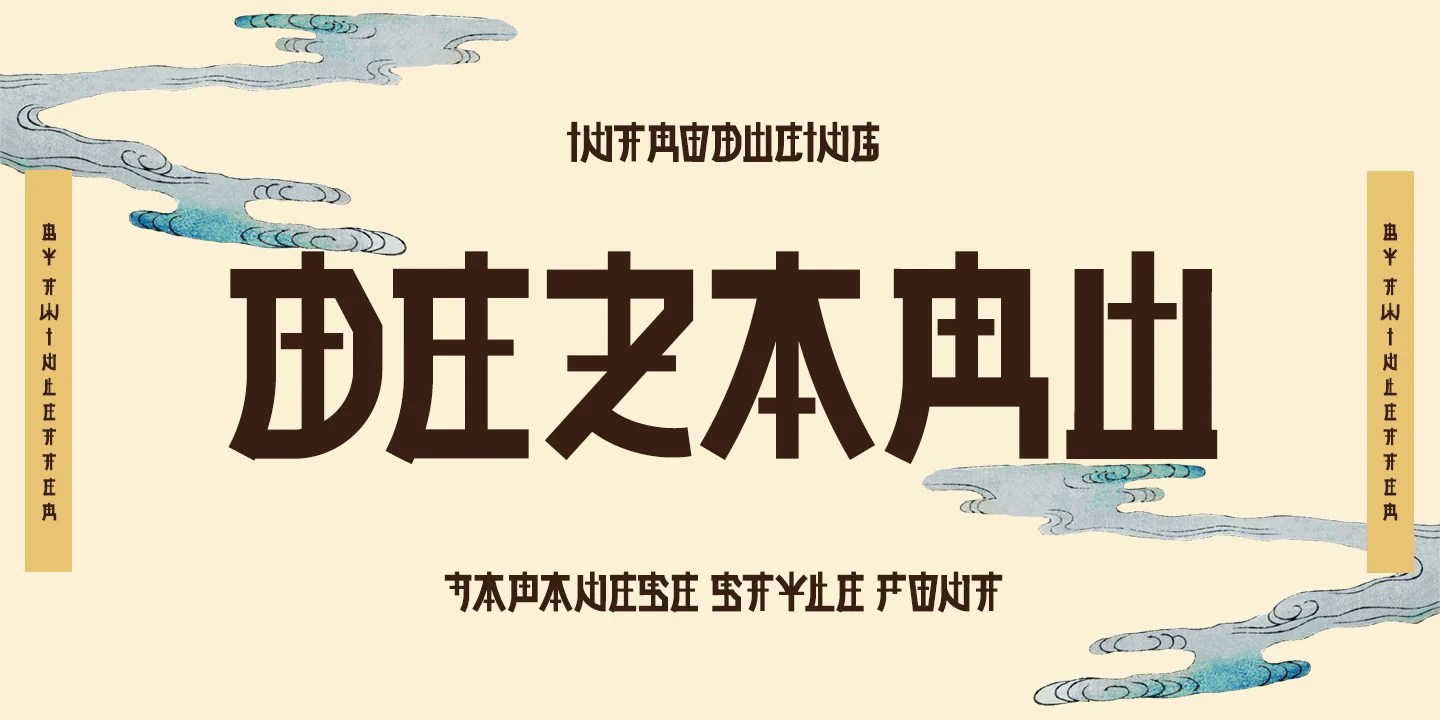
37 Stunning Japanese Style Fonts to Elevate Your Branding
Why a Japanese Style Font Works Even Without Japanese Text
Japanese visual culture — from anime and street fashion to ramen shop signage — has become one of the most recognizable aesthetics in global branding. But not every audience reads actual Japanese characters, and using authentic Japanese type can alienate readers who can’t parse it. That’s the gap a good Japanese style font fills: Latin letterforms shaped with the angular, brush-influenced character of Japanese typography, readable by anyone while still carrying that unmistakable visual flavor.
The Problem With Faking a Japanese Aesthetic
Slapping a generic bold font next to a Japanese flag emoji doesn’t create an authentic feel — it reads as a costume. A genuine Japanese style font needs the aesthetic actually built into the letterforms: the angularity, the brush-like strokes, the optical balance that Japanese typography is known for, translated into an alphabet anyone can read.
Meet the 37: A Japanese Style Font for Every Kind of Project
Twinletter has 37 Japanese style fonts, each with its own personality. Here’s the quick rundown of how each one leans:
Sujoka — distinctive and elegant, with a striking, unusual graphic display.
Kawara — bold and gorgeous, designed as an accessible alternative to authentic Japanese script.
Sukoro — abstract while staying optically balanced, so the product stands out.
Badora — built from natural handwriting, best suited to casual, fun themes.
Usagi — original handwriting shaped around a stunning, appealing Japanese feel.
Dasego — abstract letterforms with close attention to individual character and harmony.
Okasa — quirky and contemporary, for an optimal, eye-catching visual display.
Orewa — neat and elegant, easy to read and recall at a glance.
Mareka — a Japanese style font built for logotypes and branding.
Akumaru — a Japanese style font suited to food banners and posters.
Revoka — a Japanese style font for movie titles and logotypes.
Hogata — a Japanese style font for brochures and quotes.
Jakosta — a Japanese style font for branding and book titles.
Bomadha — a Japanese-style display font for posters and banners.
Kogama — a Japanese-style display font for logotypes and food branding.
Qoroshi — a Japanese-style display font for movie titles and quotes.
Bejo — a Japanese-style display font for branding and brochures.
Hamiba — a Japanese-style display font for posters and book titles.
Qewur — a Japanese-style display font for logotypes and banners.
Nesuka — a Japanese-style display font for food banners and quotes.
Bamida — a Japanese-style display font for branding and movie titles.
Tadashi — a Japanese-style display font for posters and logotypes.
Dezaru — a Japanese-style display font for brochures and book titles.
Qatora — a Japanese-style display font for banners and quotes.
Kesora — a Japanese-style display font for branding and food banners.
Eragu — a Japanese-style display font for logotypes and posters.
Toneri — a Japanese-style display font for movie titles and brochures.
Kitetsu — a Japanese-style display font for branding and book titles.
Jinkay — a Japanese-style display font for posters and quotes.
Ramisa — a Japanese-style display font for logotypes and banners.
Jumiko — a Japanese-style display font for food branding and movie titles.
Gayana — a Japanese-style display font for brochures and posters.
Bukama — a Japanese-style display font for branding and book titles.
Jansina — a Japanese-style display font for quotes and banners.
Akisa — a Japanese-style display font for logotypes and food branding.
Onari — a Japanese-style display font for posters and movie titles.
Samuri — a Japanese-style display font with a bold, samurai-inspired name for branding and logotypes.
Mixiwa — a Japanese-style display font for brochures and quotes.
Where a Japanese Style Font Actually Gets Used
Logotypes — wordmarks that need instant Japanese-inspired character
Posters & movie titles — display type with dramatic, cinematic presence
Book titles & quotes — editorial and narrative design with cultural flavor
Brochures & banners — marketing materials for Japan-themed events or products
Which Japanese Style Font Should You Pick?
With 37 options sharing the same cultural register, the fastest way to narrow it down is by mood. For a clean, elegant wordmark, Sujoka, Orewa, or Sukoro are solid starting points. For something bolder and more dramatic, Kawara stands out as one of the boldest in the set. For a softer, handwritten feel, Usagi and Badora lean toward that natural, casual register. Preview your actual brand name in each type tester before committing — small differences in stroke weight matter more than the written description suggests.
What makes a font work well as a Japanese style font rather than an authentic Japanese typeface? It captures the visual character of Japanese typography — angular strokes, brush-like details, optical balance — in Latin letterforms that any reader can understand, rather than requiring audiences to read actual Japanese script.